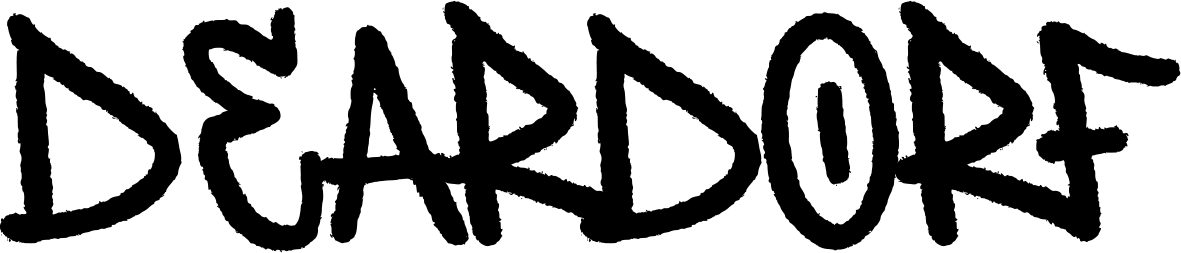
Deardorf Font
With a bit of inspiration from the creative style of horror fonts and especially urban effects, this graffiti font has come to make the poster, tattoo, game, and apparel display designs stand out to amaze every audience for its crazy hand-painted design.
Thanks to Resource Boy, here, Deardorf with three different versions, despite lacking lowercase letters, get in to pull out all the stops in highlighting your writing projects to bring a cool mood and street vibe to your life.